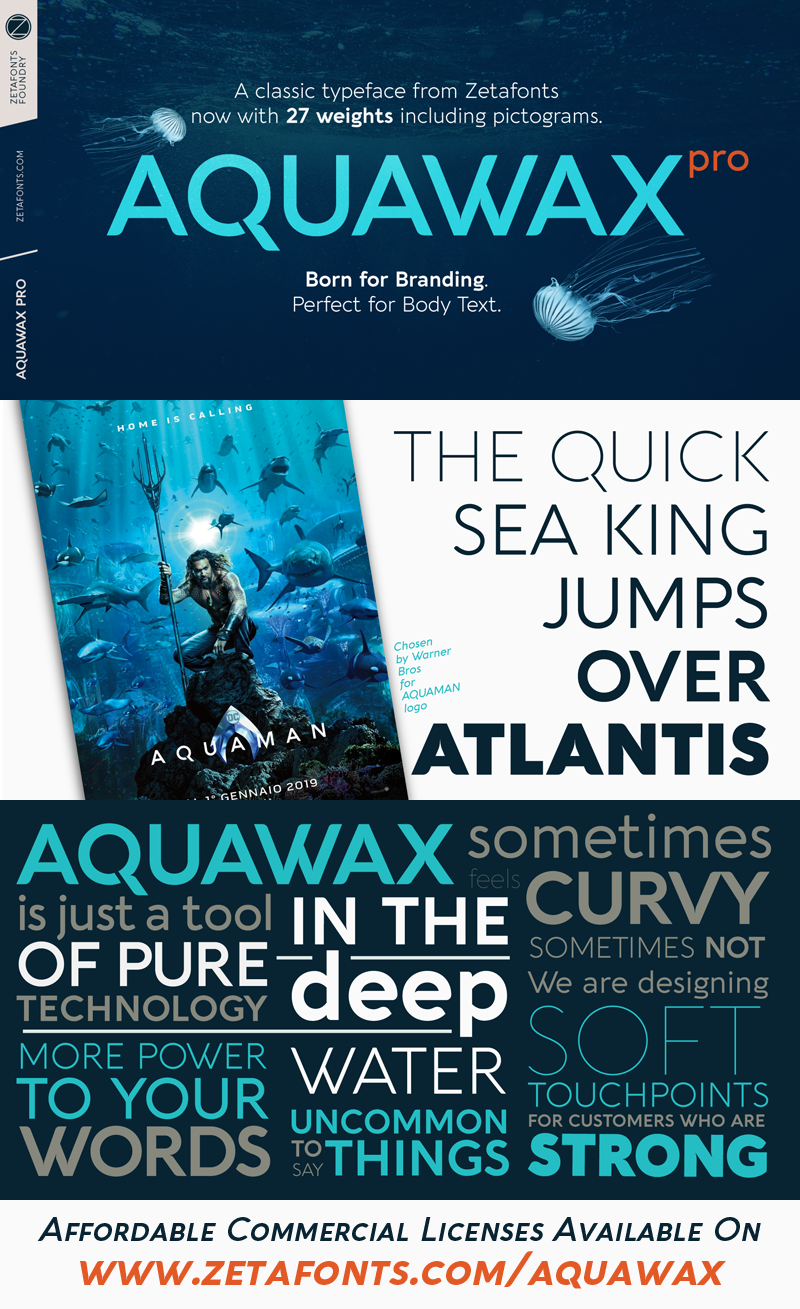
Aquawax Pro
Seeking a font with a unique blend of modernist flair and aquatic essence? Look no further than Aquawax Pro, a versatile typeface perfect for both display and body text applications. Its distinctive logo-inspired design features geometric forms, rounded edges, and intentionally reversed elements, making it an ideal choice for branding and visual identity projects.
With its generous x-height and open letterforms, Aquawax Pro is also highly readable at small sizes, making it suitable for webfont use or body text applications. The font's 27 weights (including nine pictograms) offer ample flexibility for designers to achieve the perfect balance between style and legibility.
As a bonus, Aquawax Pro features full Open Type support for positional figures, stylistic alternates, discretionary ligatures, and small caps, allowing for endless creative possibilities. With its comprehensive language support covering over 200 languages that use Latin, Cyrillic, and Greek alphabets, this font is ready to take on any project that requires a touch of aquatic flair.